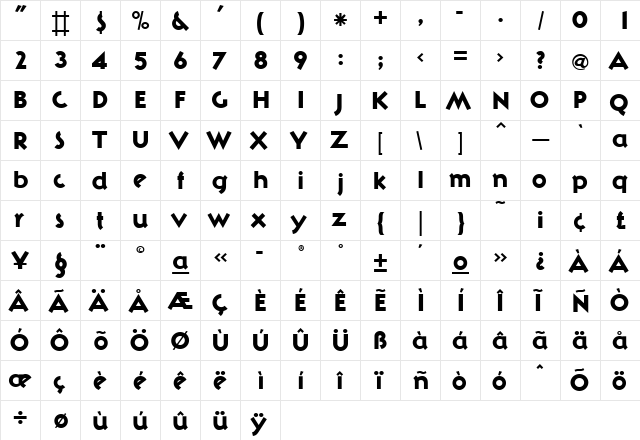
RIO Medium
Design Context for RIO Typeface
RIO takes a measured approach to typography — its balanced proportions and neutral character make it a reliable workhorse for both digital and print work.